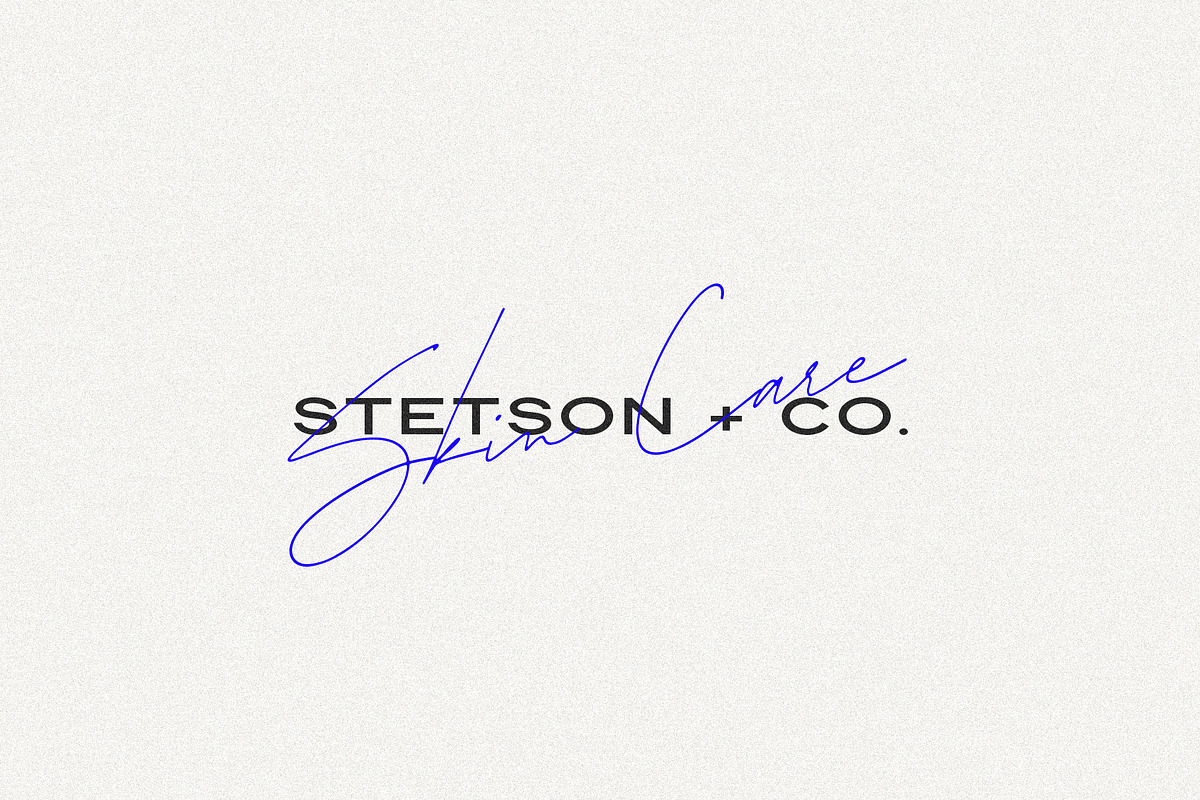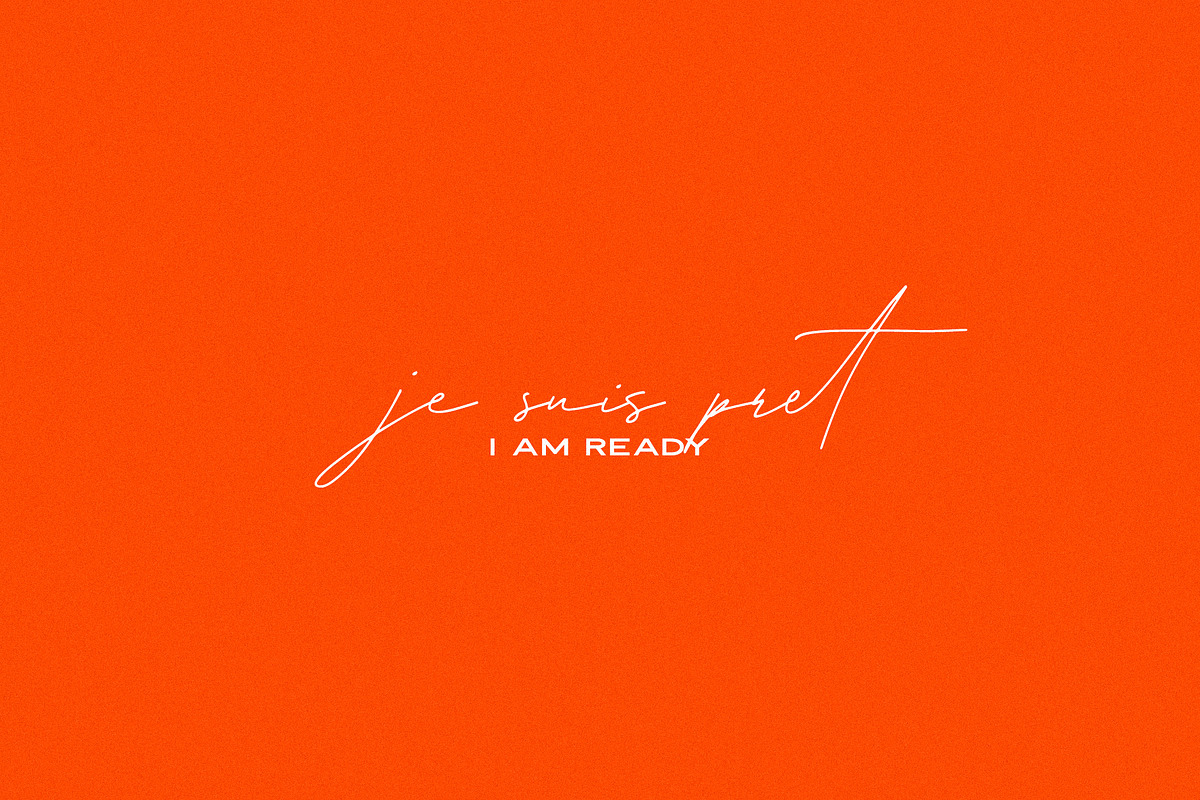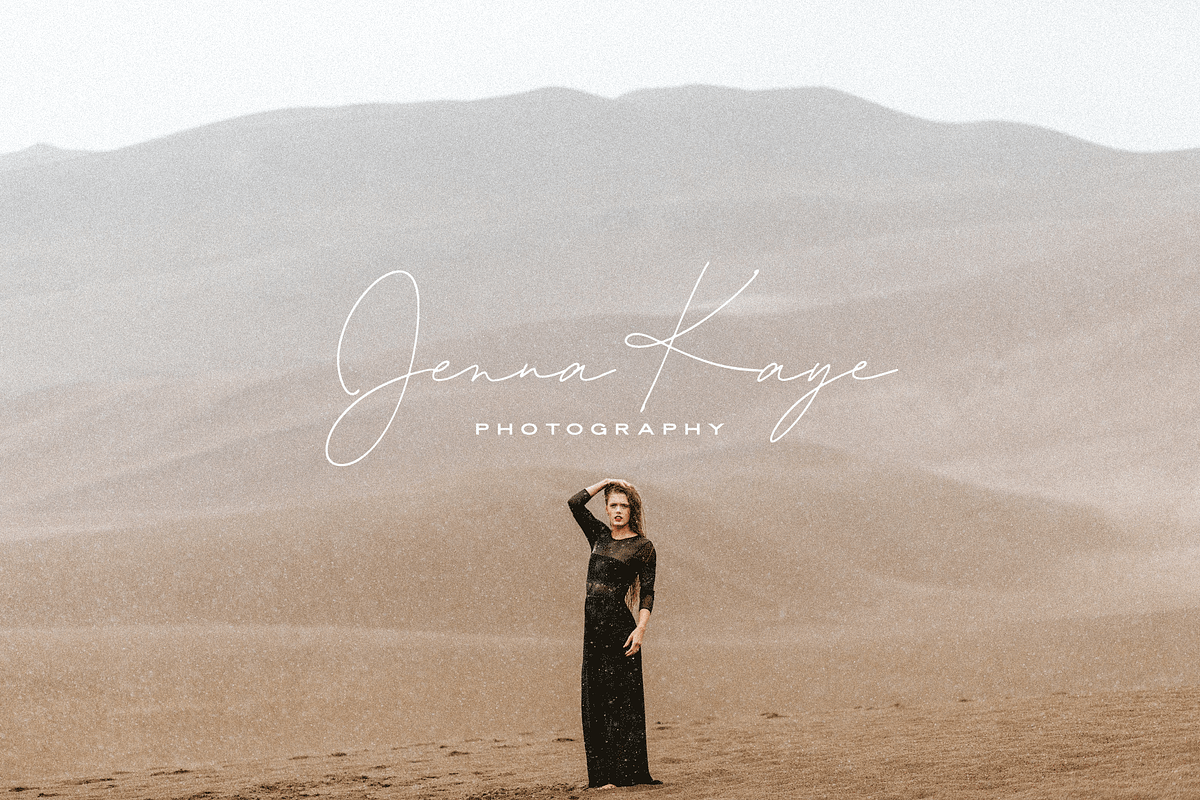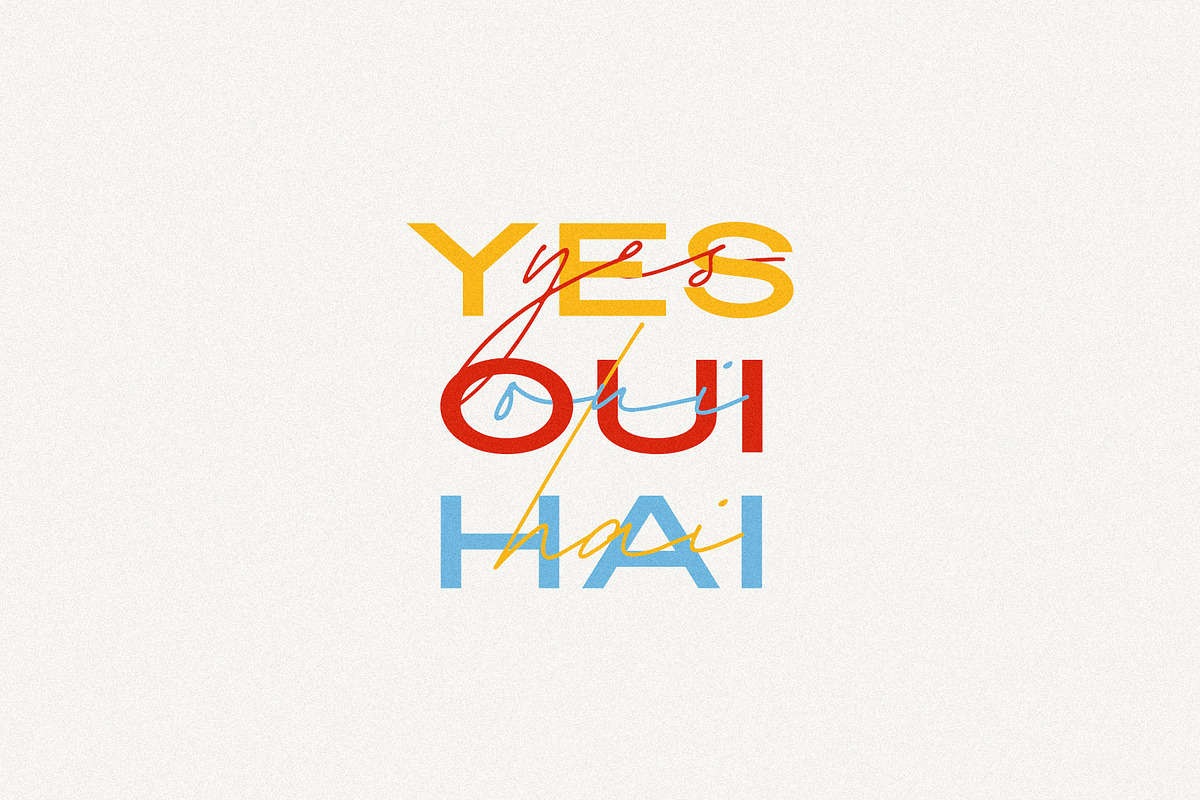
Modena is a beautiful high fashion font duo that makes for gorgeous logos, posters, wedding invitations, blog posts, social media, and more!
Modena Sans Serif looks stunning with tracking set to 220, as well as where it falls normally at 0!
Modena Script includes over 50 ligatures to make everything look totally hand-done, and alternates for each letter.
- Upper + Lowercase Letters w/ alternates
- Numbers + Punctuation
- Non-English support
- 50+ Ligatures